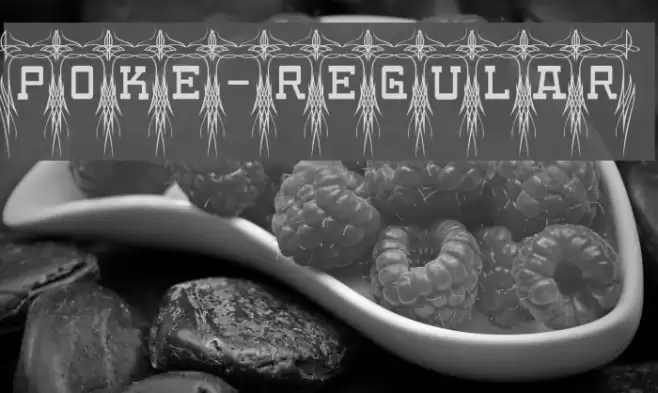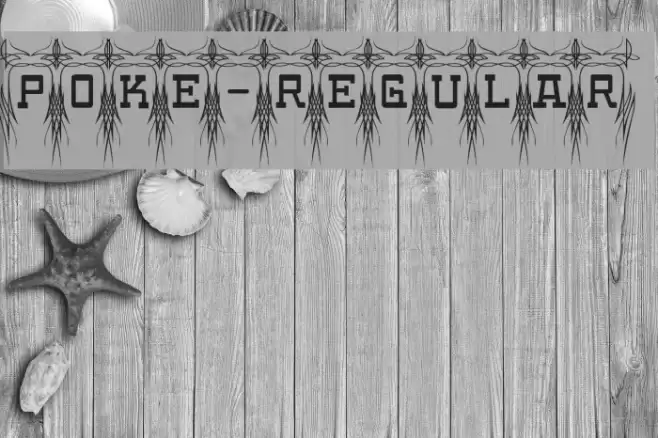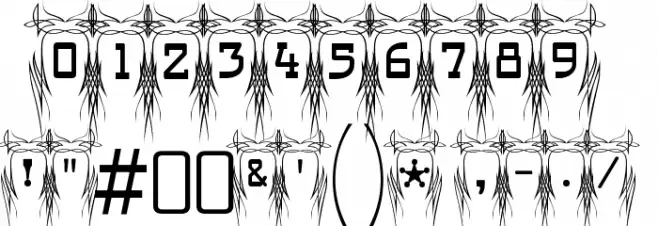
Poke-Regular Font
Poke-Regular Description
This font features a bold, geometric style with a modern twist. Each character is enclosed within a decorative frame that resembles intricate tribal or tattoo-like designs, adding a unique flair to the overall appearance. The uppercase letters are uniform in height and width, creating a cohesive look. The numbers and special characters maintain the same boldness and are also encased in the decorative frames, ensuring consistency across all glyphs. The font's distinct style makes it stand out, offering a striking visual impact.
A bold, geometric font with decorative tribal-style frames from Uncategorized fonts.
- Proposed Projects: Ideal for projects that require a bold statement, such as posters, album covers, or branding for edgy or alternative brands.
- Overall Style: Modern, Decorative